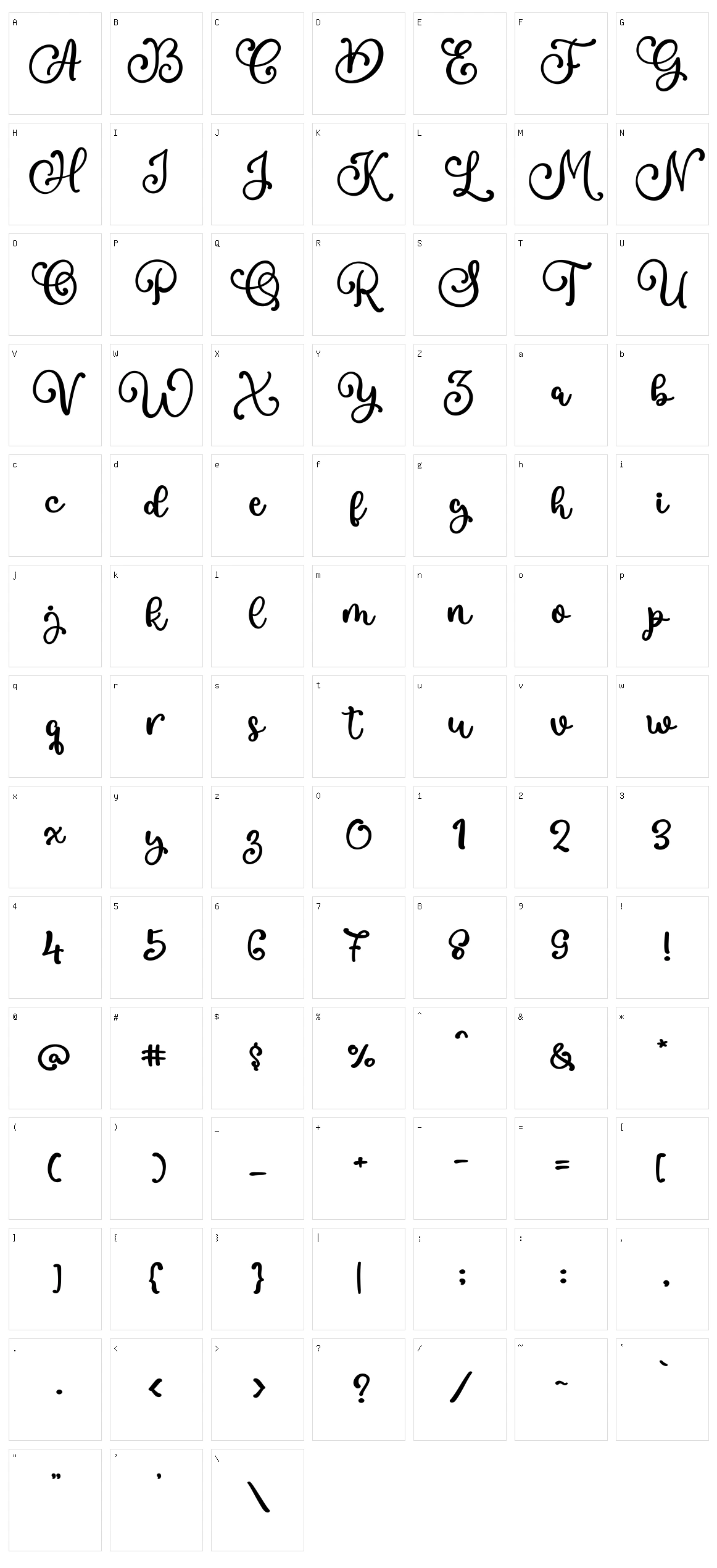
The free font Apple and Sugar is carefully designed by Etigletters, showcasing a thoughtful balance of creativity and usability and falls under the Script font style. When you download the ZIP file, it contains only 82.88 KB of font files, making it lightweight and quick to download. Please review the license details below to understand permitted usage and distribution rights. If license information is not available, we recommend using this font for personal projects only or contacting the author directly for commercial usage permissions.